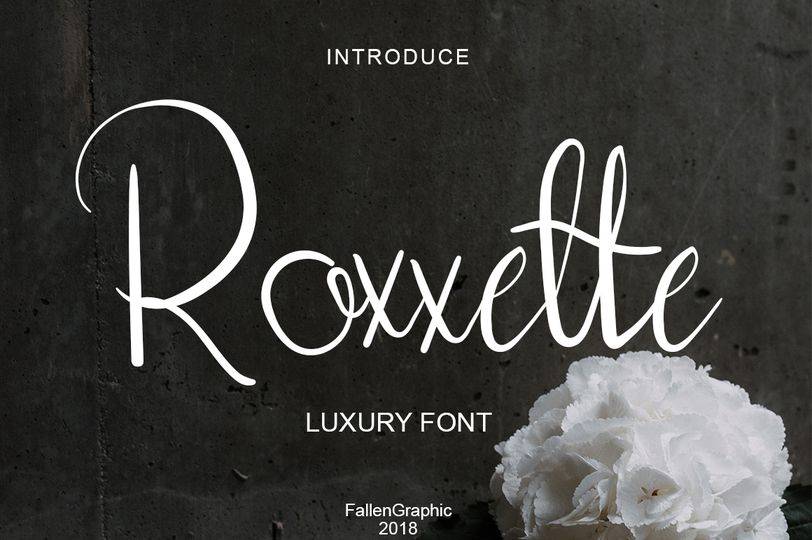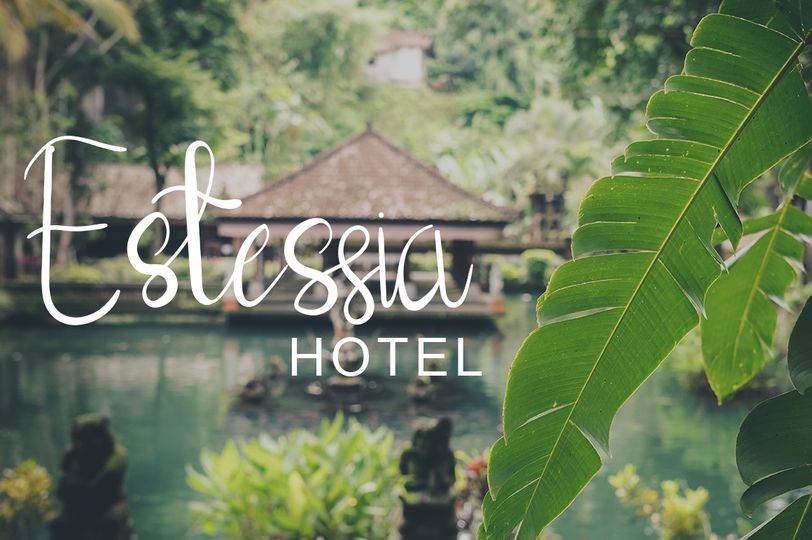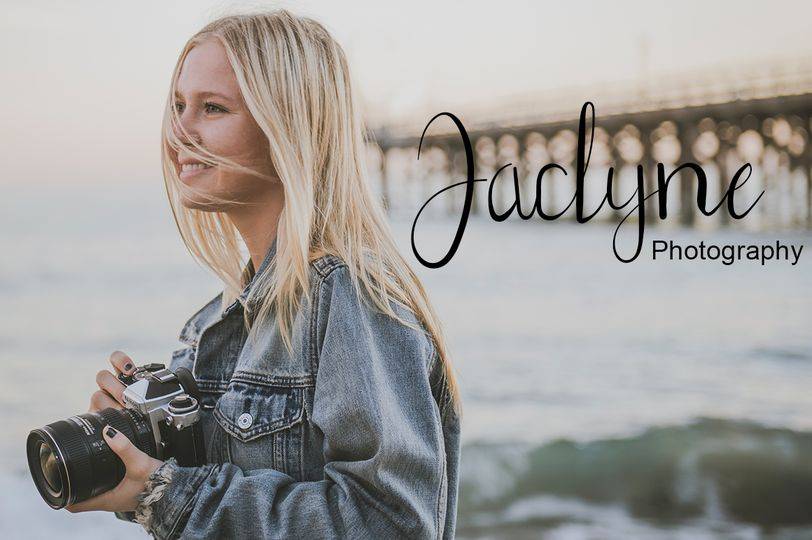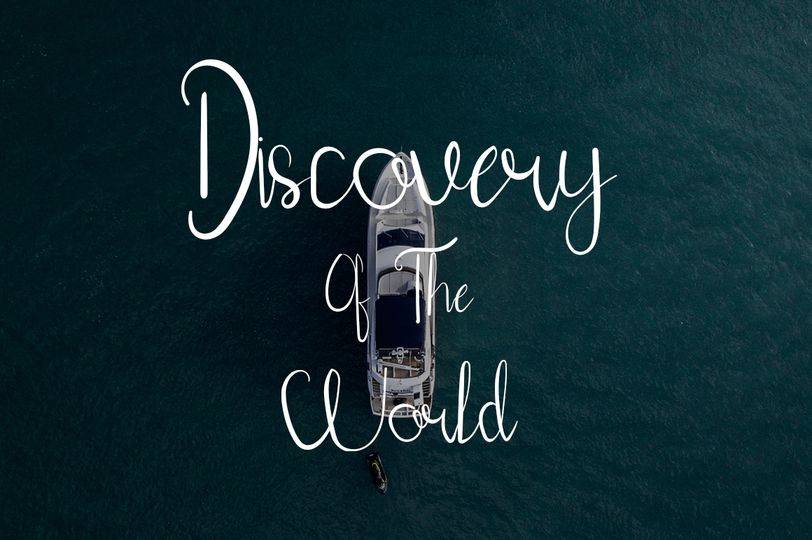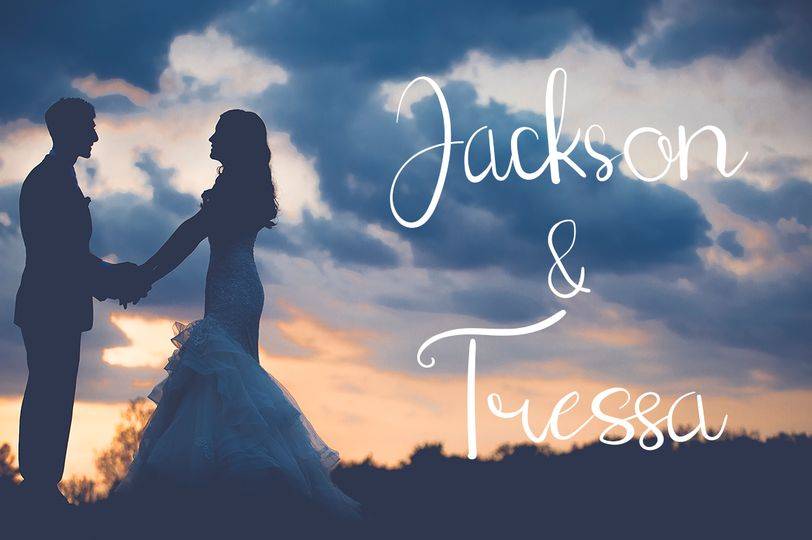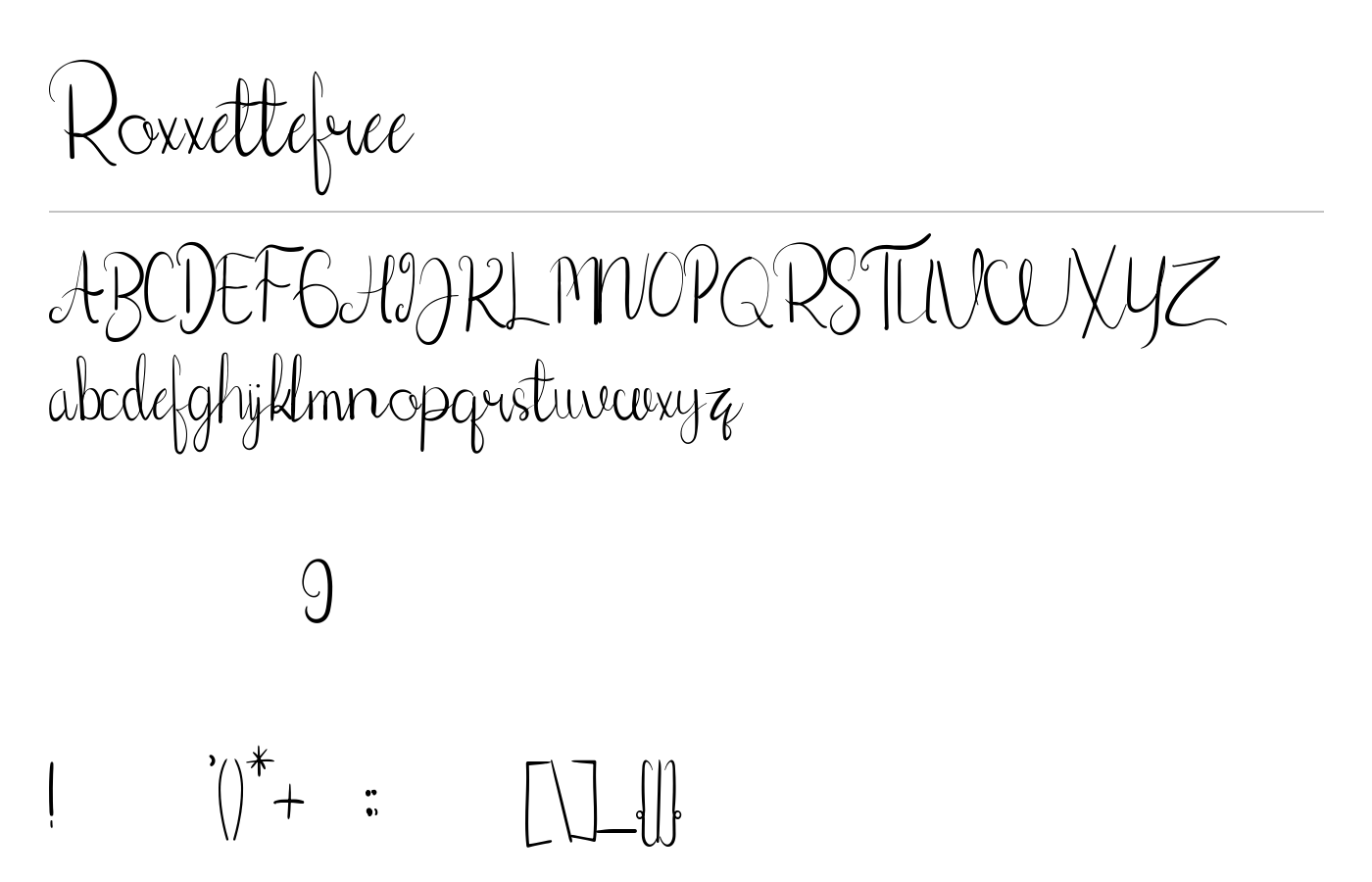
Roxxette is a delicate, hand-drawn script font with a tall, narrow structure and elegant, flowing strokes. Its thin lines and playful curves give it a whimsical yet refined feel, making it perfect for creative projects, invitations, or branding that seeks a charming, personal touch. This font works well in headlines and decorative uses where a light, artistic style is desired.
Roxxette Font
About Roxxette Font
| Font family | Roxxette Font |
| Release date | 2018-11-07 |
| Designer | FallenGraphic |